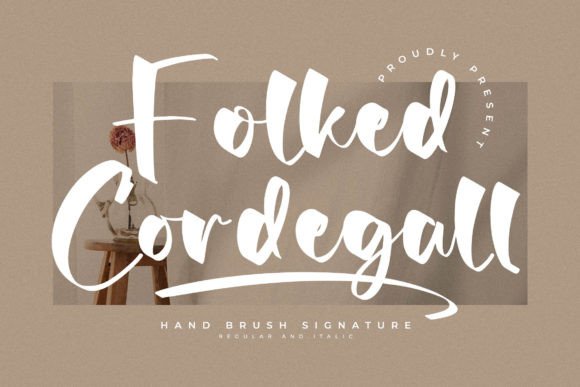
In the realm of typography, Folked Cordegall emerges as a captivating masterpiece that will transport your designs to new heights. Crafted with meticulous precision by Glorytype Studio, this flowing signature brush font embodies elegance and sophistication, making it an ideal choice for those seeking to infuse their projects with a touch of timeless beauty.
As you immerse yourself in the depths of Folked Cordegall's exquisite swirls and flourishes, you'll discover a font that dances with grace and fluidity. Its elegant lines and enchanting curves will effortlessly enhance your designs, adding a touch of magic to every word and letter. Whether you're creating stunning logos, eye-catching social media graphics, or heartfelt invitations, Folked Cordegall will elevate your work to new levels of visual artistry.
The versatility of Folked Cordegall knows no bounds. It seamlessly adapts to a wide range of creative endeavors, from whimsical illustrations to striking headlines. Its ability to effortlessly blend with other design elements makes it a versatile asset that will complement any project. Whether you're a seasoned designer or just starting your creative journey, Folked Cordegall will become your trusted companion, unlocking endless possibilities for expression.
With Folked Cordegall at your fingertips, you'll embark on a journey of creative exploration, discovering new depths of beauty and inspiration. Its elegant charm will captivate your audience, leaving them spellbound by the allure of your designs. Embrace the magic of Folked Cordegall and watch as your creative visions come to life, captivating hearts and minds wherever they may wander.